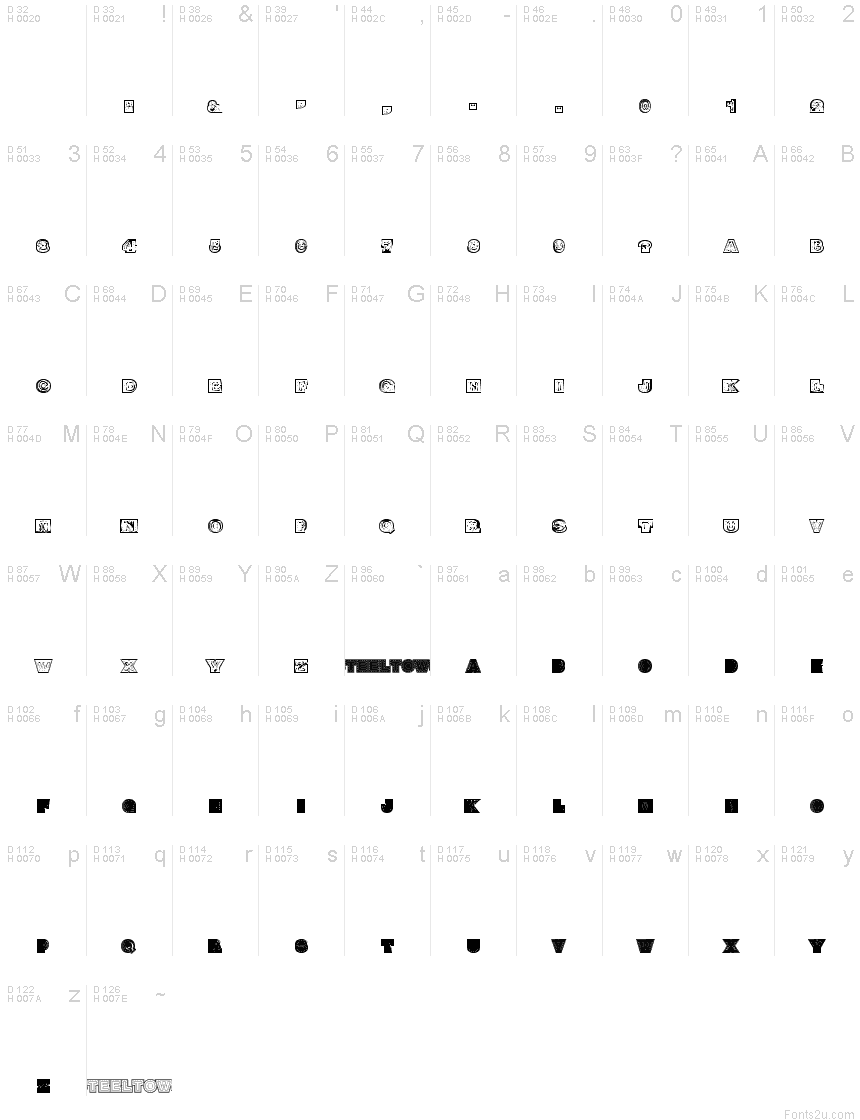
SteelTown
Steel Town, by Daniel Gauthier of GautFonts, is a free marquee-display font with the swagger of industrial sign lettering and theater lights. The letters are broad, squared off, and built around a double-line structure, while the rows of round dots read like rivets or bulbs, giving the whole font a steel-town, billboard-at-night attitude.
It fits naturally in posters, event flyers, retro storefront branding, title cards, album covers, and bold merch graphics where a free font with a built-in signmaking feel can do more with fewer words. Use it for short headlines, logos, or monogram-style initials when you want that lit-up metal edge without drifting into a western or circus look.
SteelTown by J.F.Y.Daniel Gauthier GautFonts (Dedicated to the city of Hamilton, Ontario, Canada)